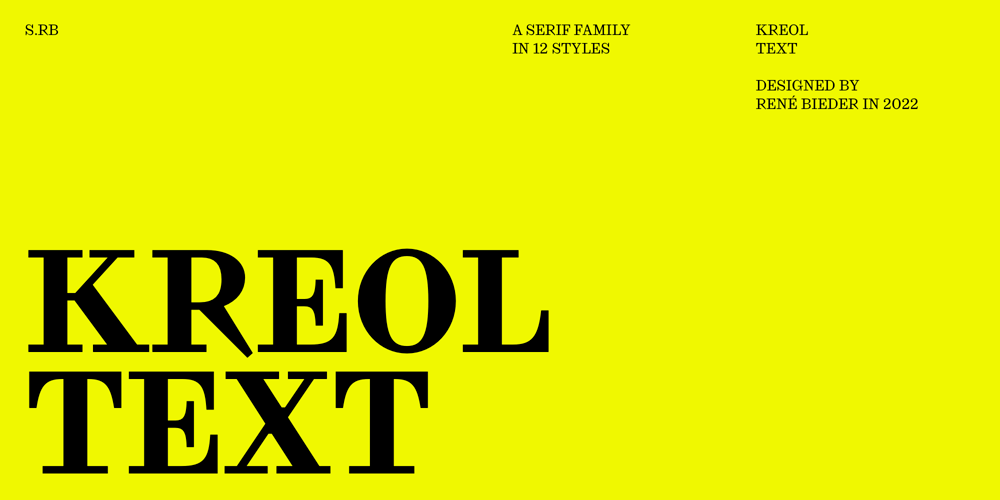
Kreol Text
Kreol Text font
Kreol Text Font Family was designed by René Bieder and published by René Bieder. Kreol Text contains 12 styles and family package options. The early years of the 19th century were marked by an undeniable sense of restlessness, as the world underwent profound transformations during this revolutionary era. It was amidst this dynamic backdrop that a wave of new typefaces emerged, boldly breaking away from traditional norms and pushing boundaries to captivate attention. Kreol, drawing inspiration from this rich heritage, carries the torch forward, bridging the gap between tradition and modernity with finesse. It serves as a refined and contemporary interpretation of an evergreen concept, embodying the timelessness of its roots while embracing the demands of the present. Kreol stands as a testament to the enduring power of typographic design, infusing it with a fresh perspective that resonates with contemporary audiences.Kreol is available in three optical sizes – Text, Standard and Display– optimized for each specific typographic use case.